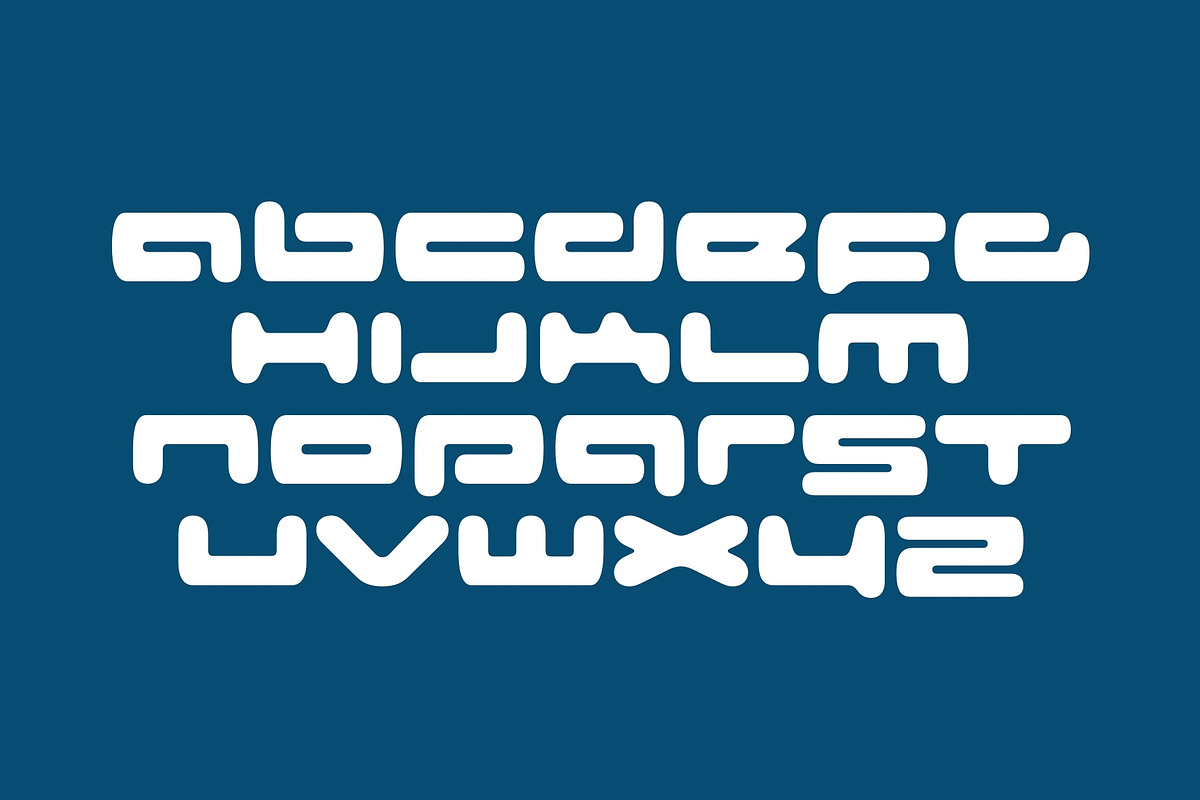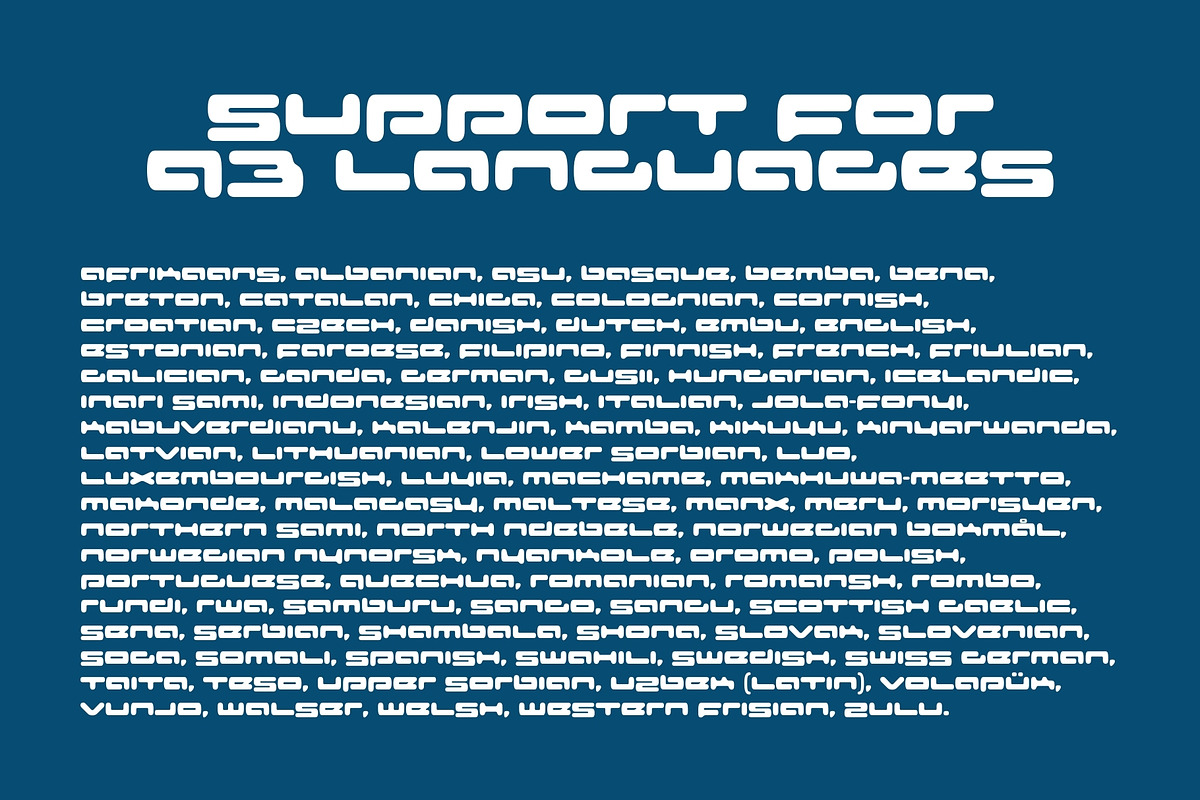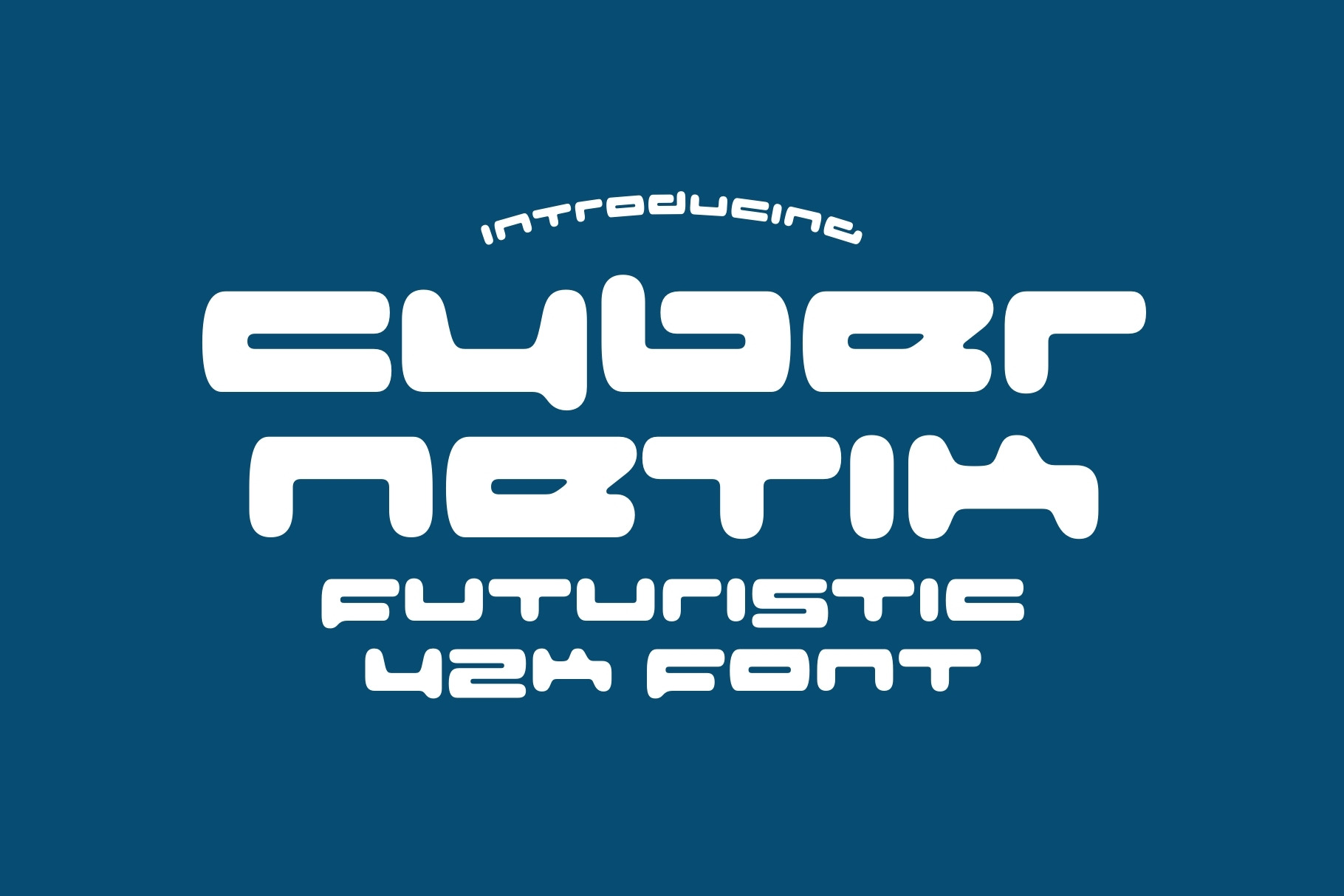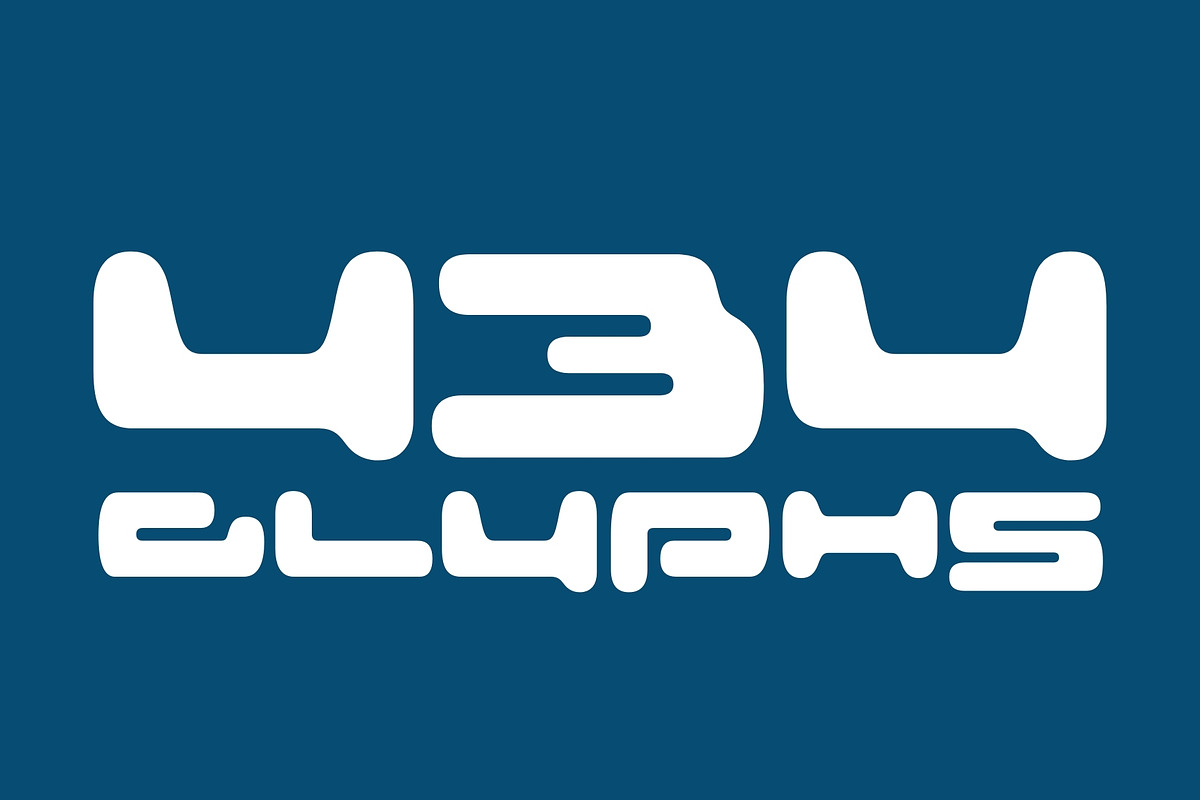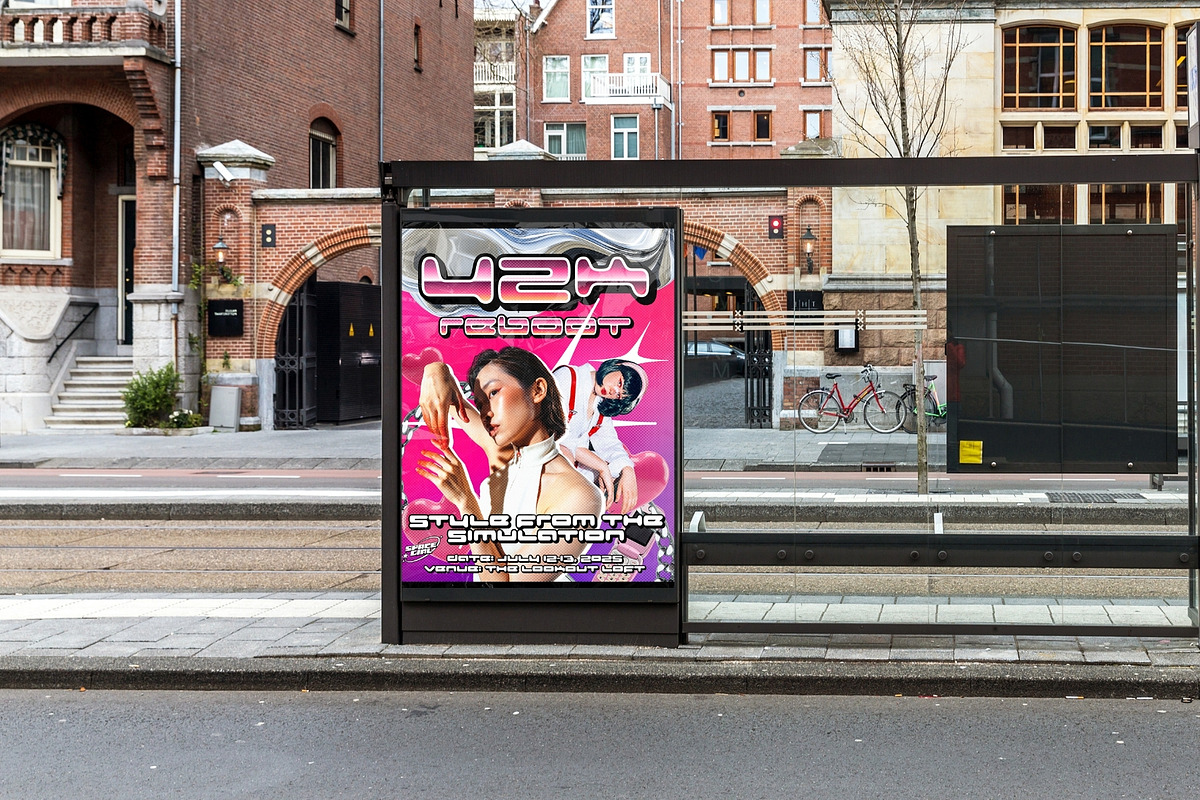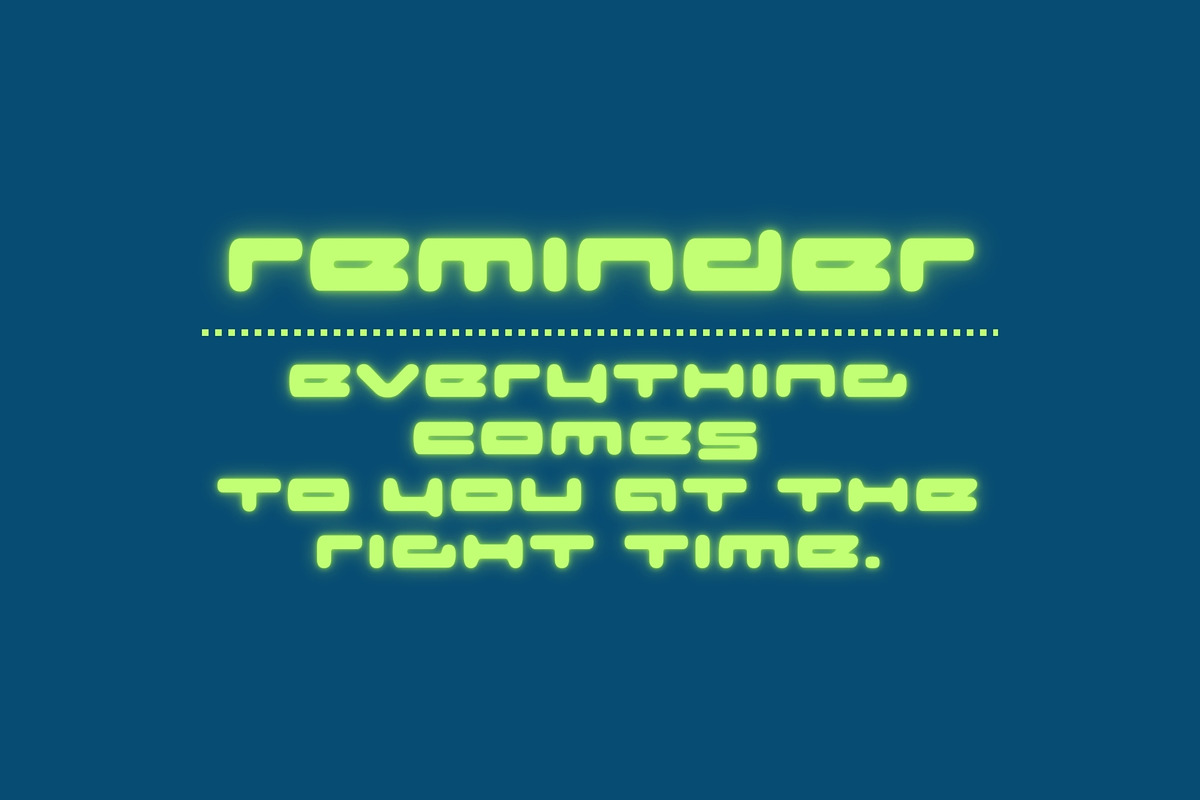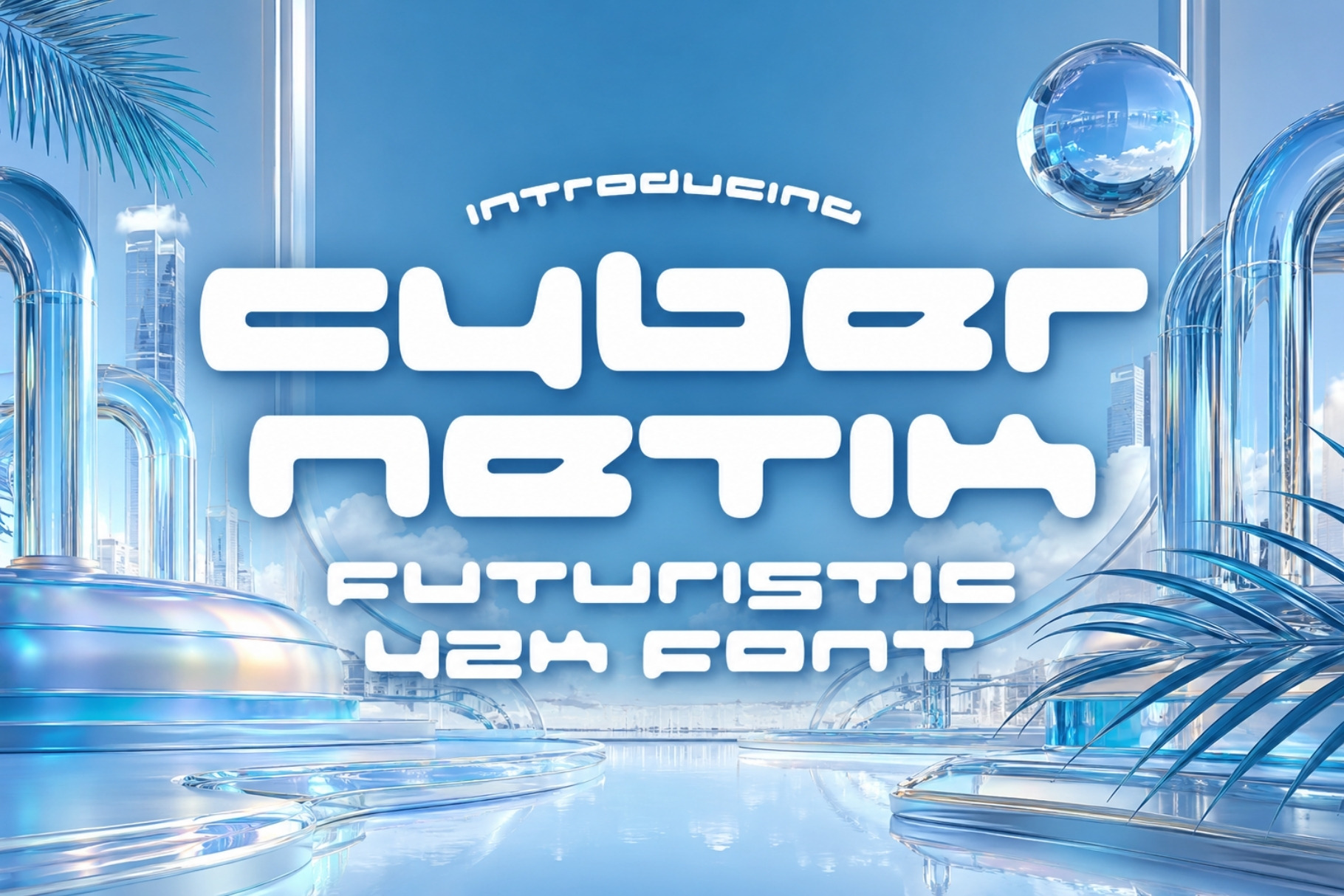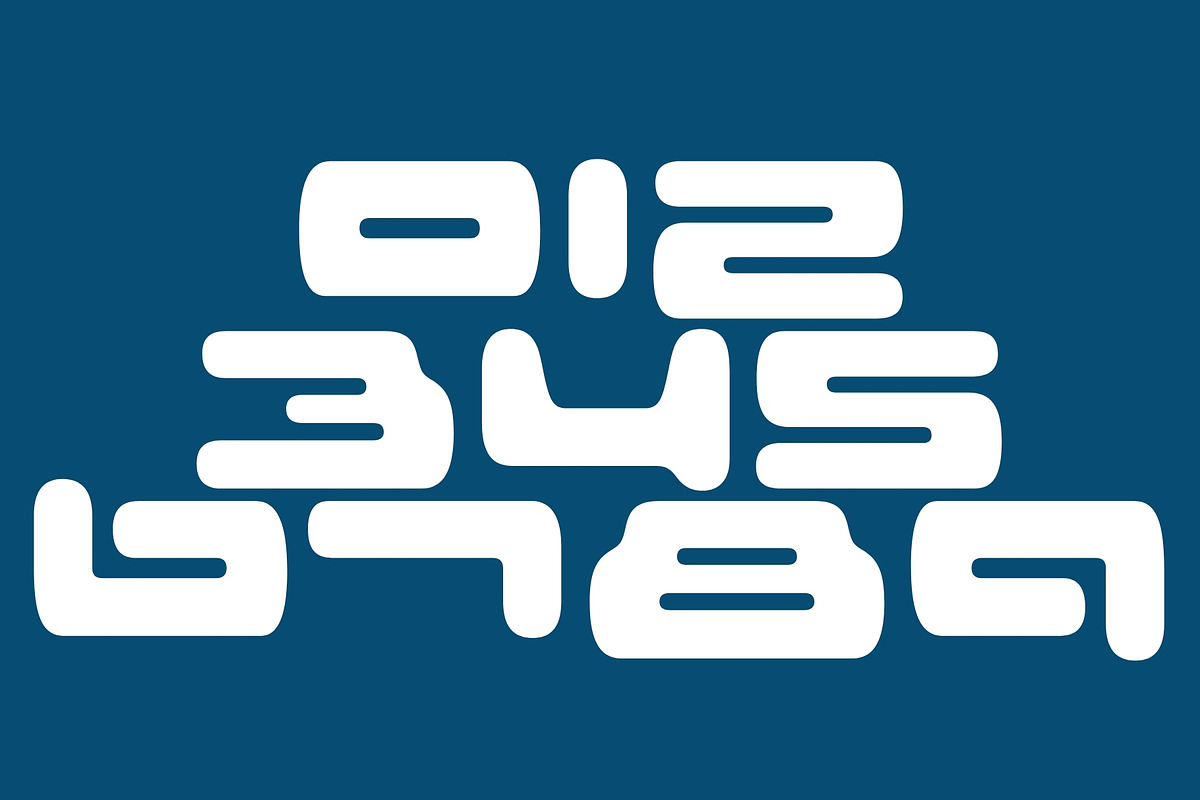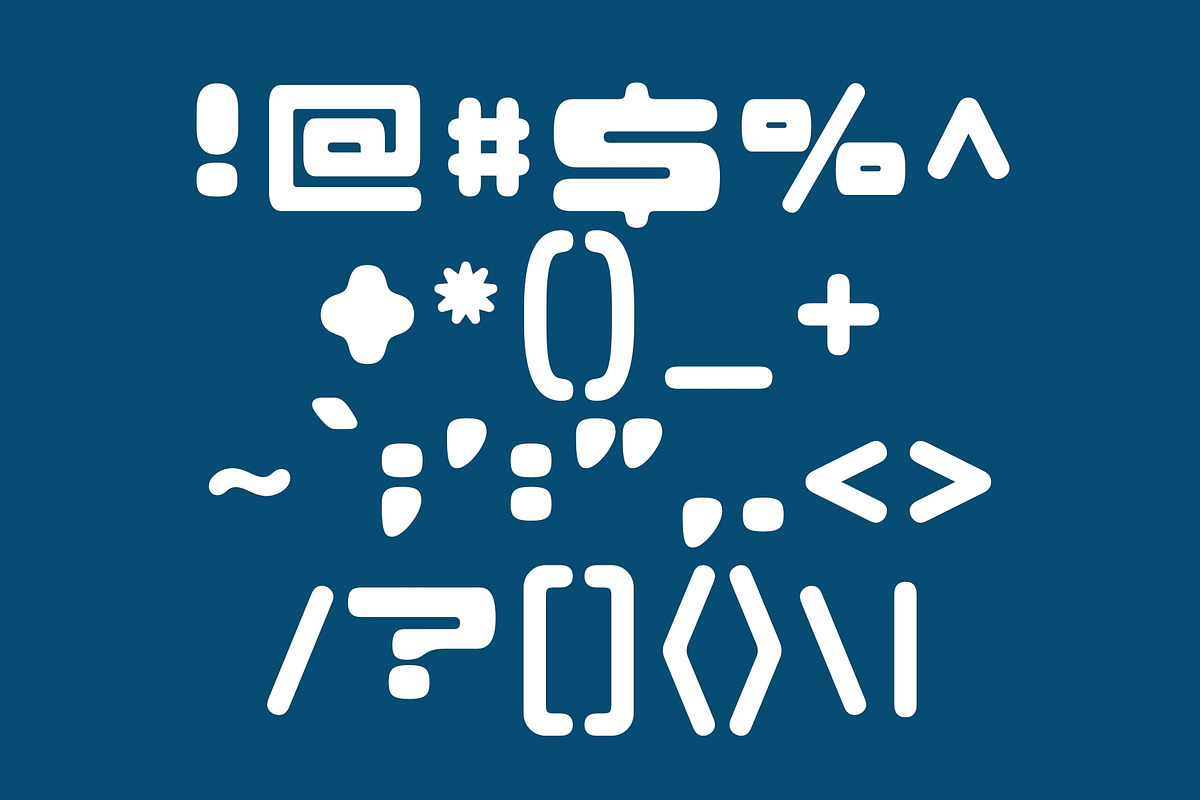
Cybernetik - Futuristic Y2K Font
Step into the future with Cybernetik, a cutting-edge font inspired by the bold, digital aesthetics of the Y2K era. Packed with retro-futuristic vibes, sharp angles, and sleek curves, this typeface captures the essence of early-2000s tech optimism while embracing modern sophistication.
From neon-soaked cyberpunk designs to high-tech branding, Cybernetik thrives in digital spaces, gaming interfaces, fashion visuals, and futuristic advertising. Its dynamic presence commands attention, making it the perfect choice for designers looking to infuse their projects with nostalgia and innovation.
Whether you're creating a futuristic logo, an electrifying event poster, or eye-catching social media graphics, Cybernetik delivers a powerful, high-energy aesthetic that resonates with the past, present, and future.